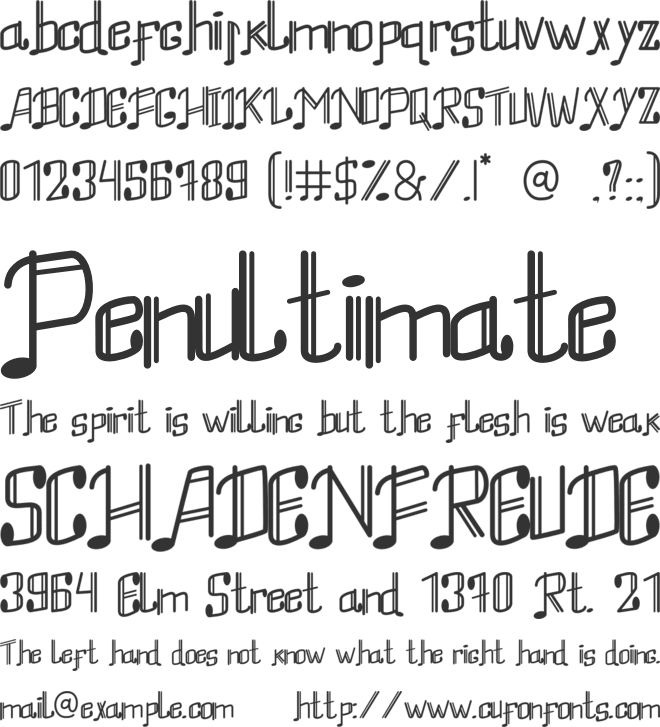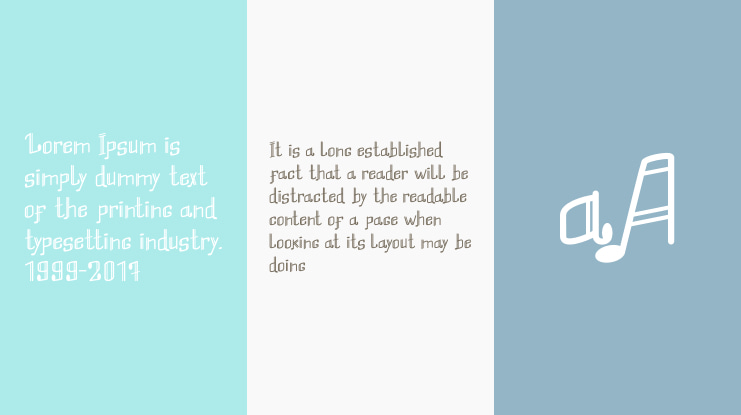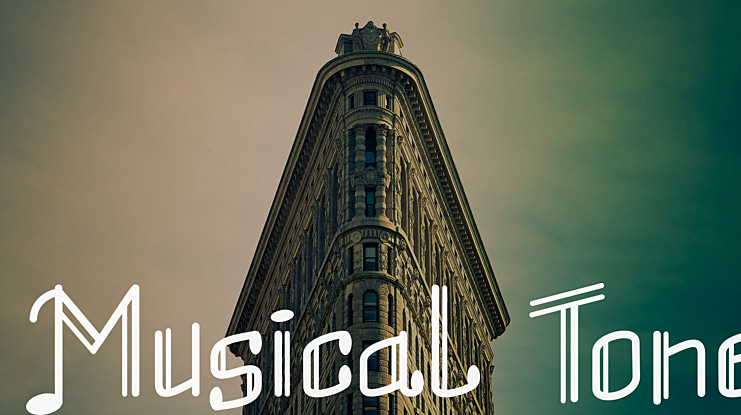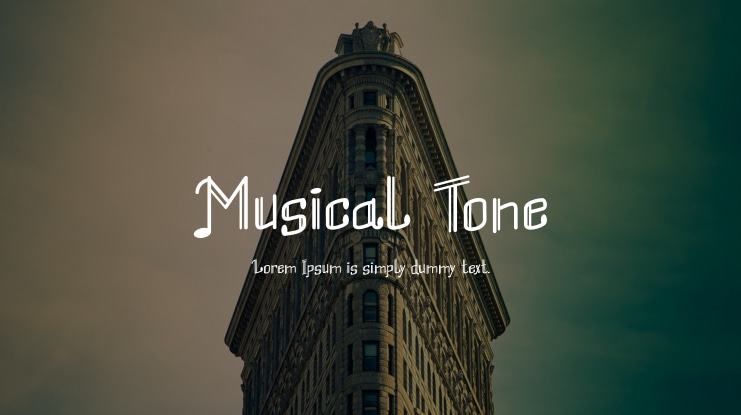
Musical Tone Font
Musical Tone font is a handwritten and display font that good for beautiful content such as music, entertainment, concert, craft and etc…. You can add them to make it great for creative projects.